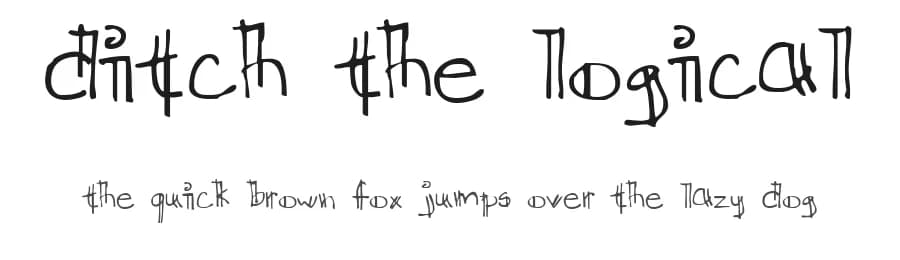
About Ditch The Logical Font
Ditch The Logical is a script & handwritten font designed by Kreative Korporation. It includes 73 glyphs, a regular weight, TTF (TrueType) format, and 89 languages. Ditch The Logical is free to download; check the license details on this page before commercial use. Script & handwritten fonts like Ditch The Logical work best for wedding invitations, greeting cards, signatures, and elegant branding.
Ditch The Logical Font is a script font that shines as a display or heading face. Pair it with a clean sans-serif or serif font for body text β the contrast creates a clear hierarchy while the two styles stay balanced and easy to read.
Ditch The Logical Font is a script handwritten typeface by Kreative Korporation, ideal for logos, invitations, branding, and creative projects.